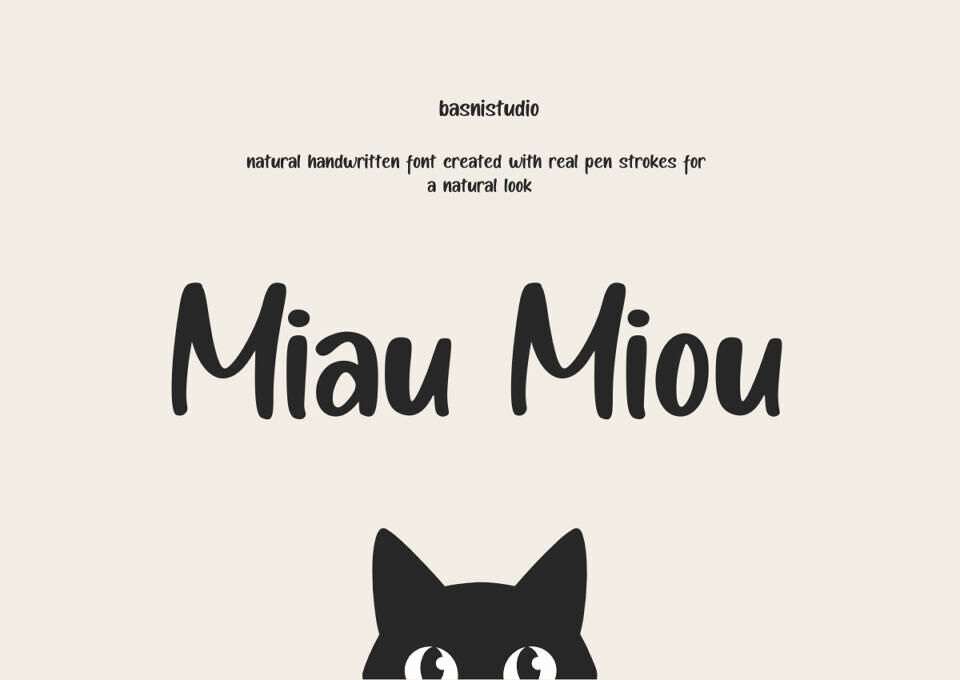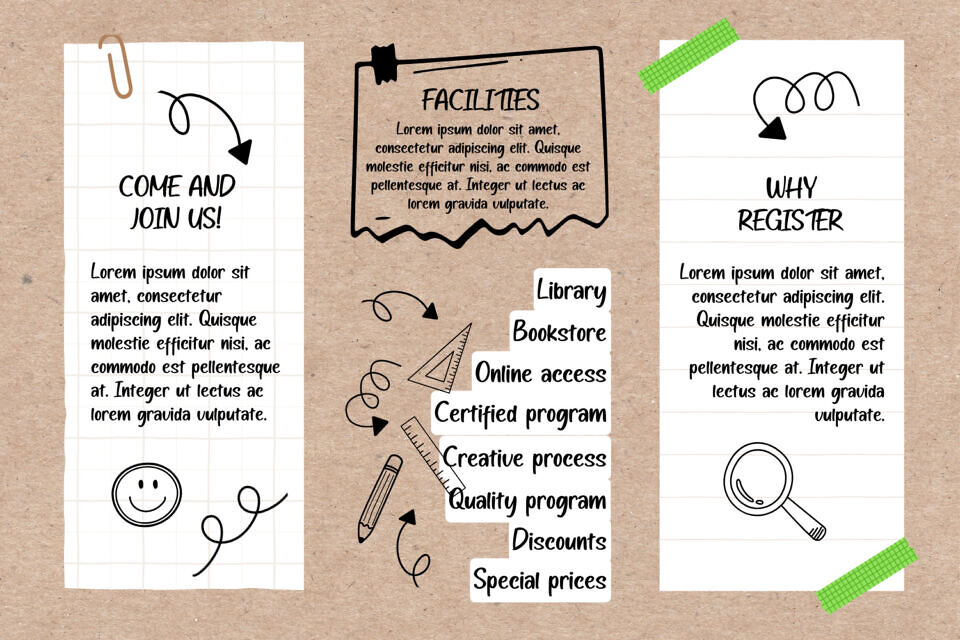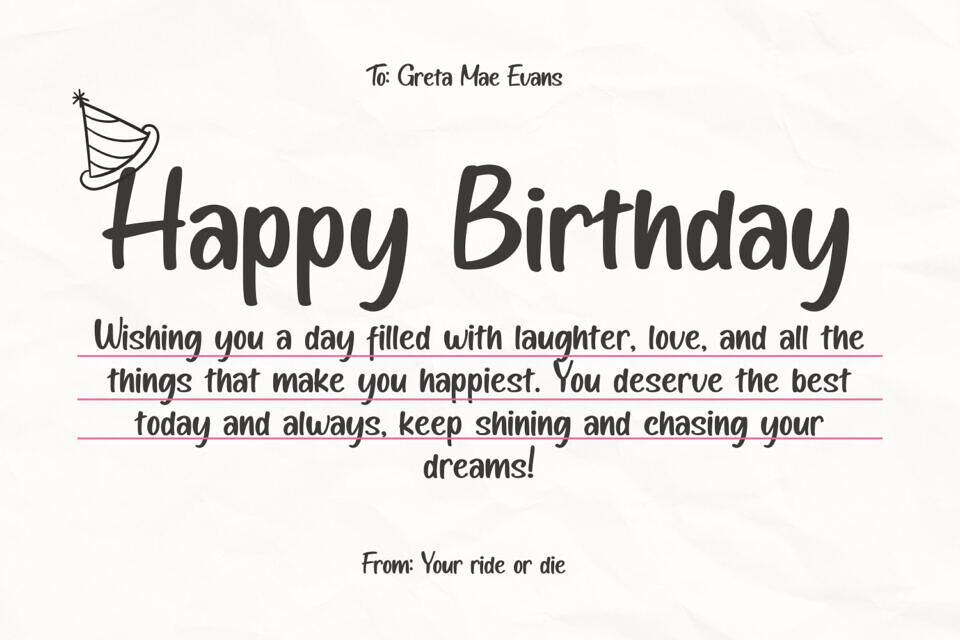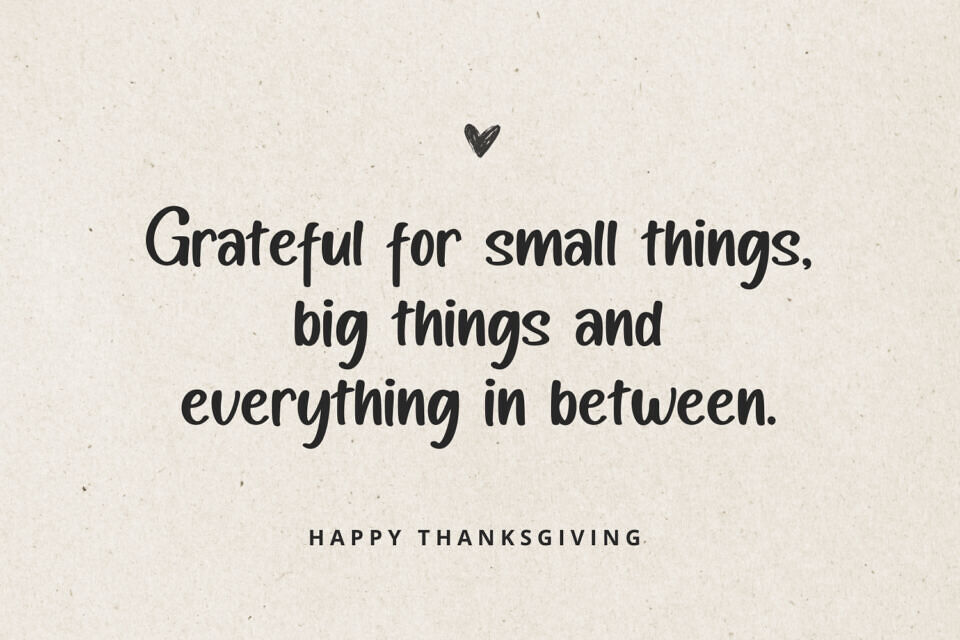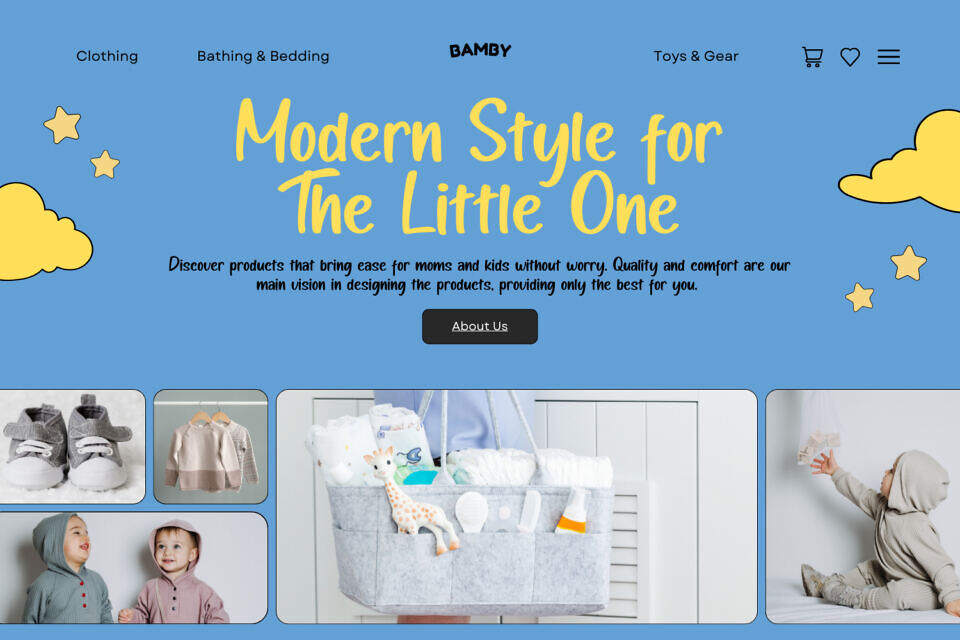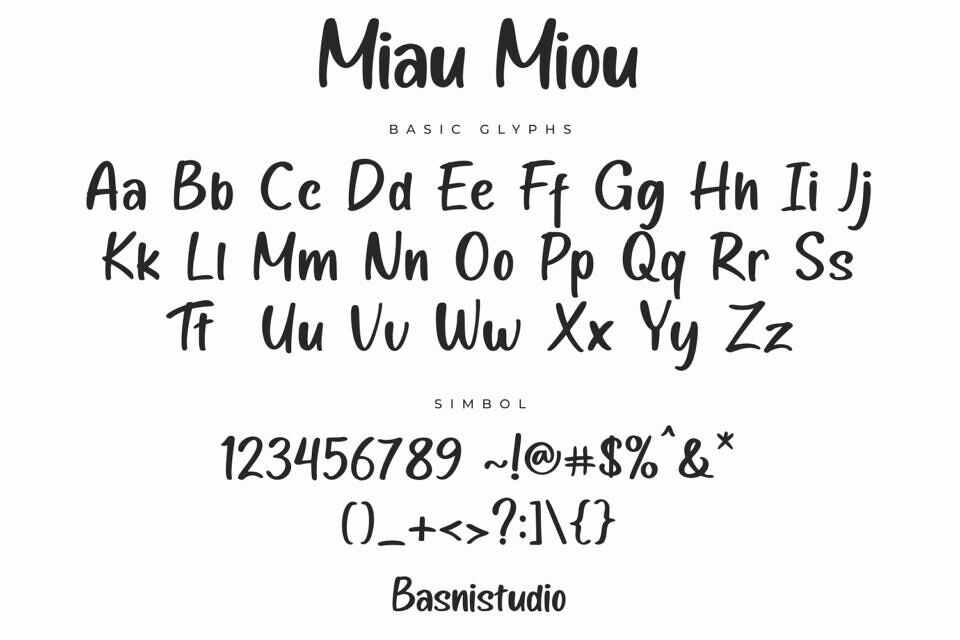
Miau Miou is a cute handwritten font that mimics real pen strokes, giving a personal feel to various designs, including branding, social media, invitations, and packaging.